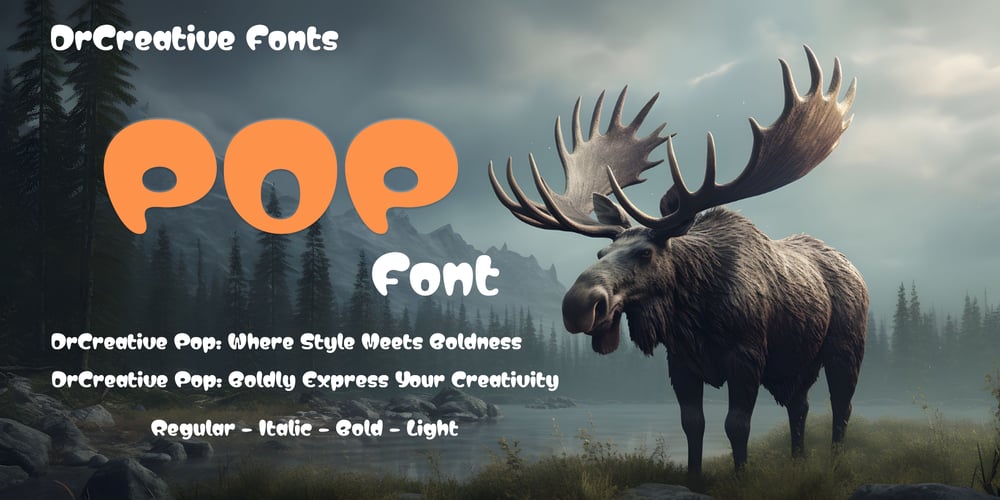
Dr Creative POP Font Family was designed by Mohamed Tharwat Omara and published by DrCreative. Dr Creative POP contains 4 styles and family package options. DrCreative Pop is a dynamic typeface family designed to bring your projects to life with a burst of creativity. Whether you’re aiming for a bold, eye-catching headline or a sleek, sophisticated logo, this font family has you covered.With Regular, Bold, Light, and Italic styles, DrCreative Pop offers the versatility you need for any design task. The Regular style provides a solid foundation, perfect for clear and readable text. Bold takes your message to the next level with striking weight and presence, ideal for grabbing attention. Light delivers a softer, more refined touch, perfect for elegant designs and delicate details. Meanwhile, Italic adds a dynamic slant, infusing your text with movement and flair.Each style within the DrCreative Pop family is crafted to work harmoniously together, giving you endless creative possibilities. Whether you’re designing for print, web, or branding, this typeface family ensures that your message not only stands out but truly pops.